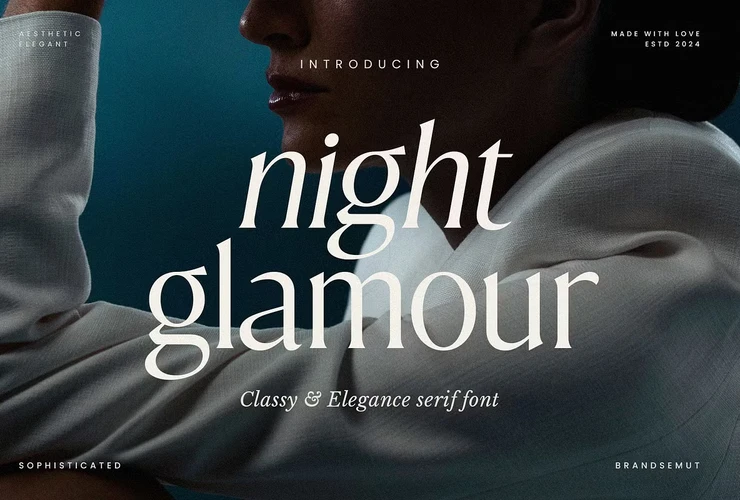
Elevate Your Designs with Night Glamour: A Classy & Elegant Serif Font
Add a touch of sophistication and modernity to your designs with the Night Glamour Classy Serif Font. This stylish and elegant serif font is the perfect choice for anyone looking to create impactful and visually stunning designs. Whether you’re working on branding, logos, product packaging, or invitations, Night Glamour offers clean lines, smooth curves, and a timeless aesthetic that will make your projects stand out.
Why Choose Night Glamour?
Night Glamour is more than just a serif font—it’s a statement of elegance and modernity. Designed for those who appreciate a refined look, this font is ideal for display purposes, making it a perfect fit for headings, magazines, and other high-visibility projects. Its ligatures and alternate characters allow for customization, adding a unique flair to your work without compromising on readability.
Key Features of Night Glamour:
Stylish and Modern Design: Night Glamour combines clean lines with smooth curves, creating a visually appealing serif font that exudes elegance.
Versatile Usage: Perfect for headings, logos, branding, product packaging, and invitations, ensuring that your designs always look polished and professional.
Ligatures and Alternates: Equipped with ligatures and many alternates, Night Glamour allows for creative flexibility, making it easy to tailor the font to your specific needs.
Perfect for High-End Projects: Its classy and elegant design makes it the ideal choice for luxury branding, fashion magazines, and upscale product packaging.
How to Use Night Glamour
Night Glamour is designed to be versatile and easy to use, making it suitable for a wide range of projects:
Branding and Logos: Create memorable logos and branding materials that convey a sense of elegance and sophistication.
Magazines and Editorials: Enhance the visual appeal of your magazines and editorial layouts with a font that commands attention.
Product Packaging: Give your product packaging a high-end look that resonates with consumers and stands out on the shelf.
Invitations and Stationery: Perfect for wedding invitations and other formal stationery, Night Glamour adds a touch of class to any event.
The Night Glamour Classy Serif Font is the ultimate choice for designers looking to create stunning, high-end designs. Its elegant lines, versatile usage, and customizable features make it a must-have in any designer’s toolkit. Elevate your projects and leave a lasting impression with Night Glamour.